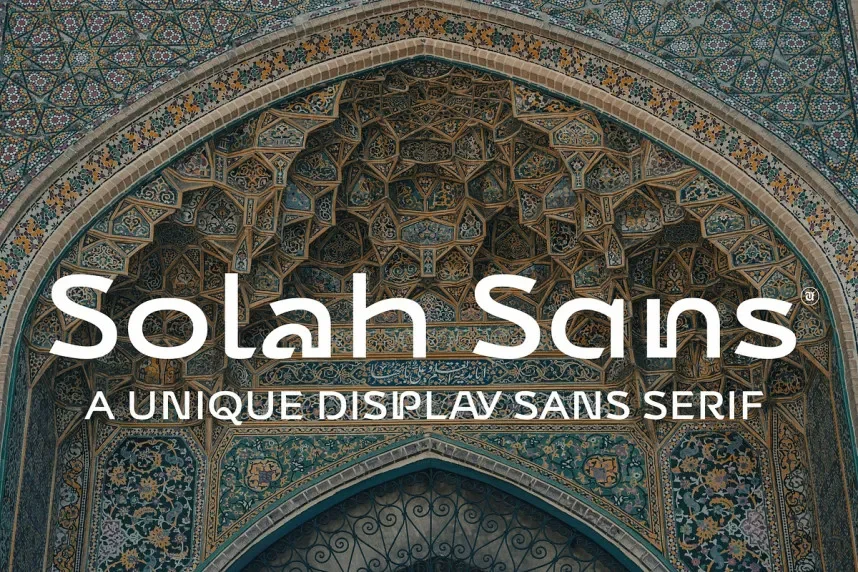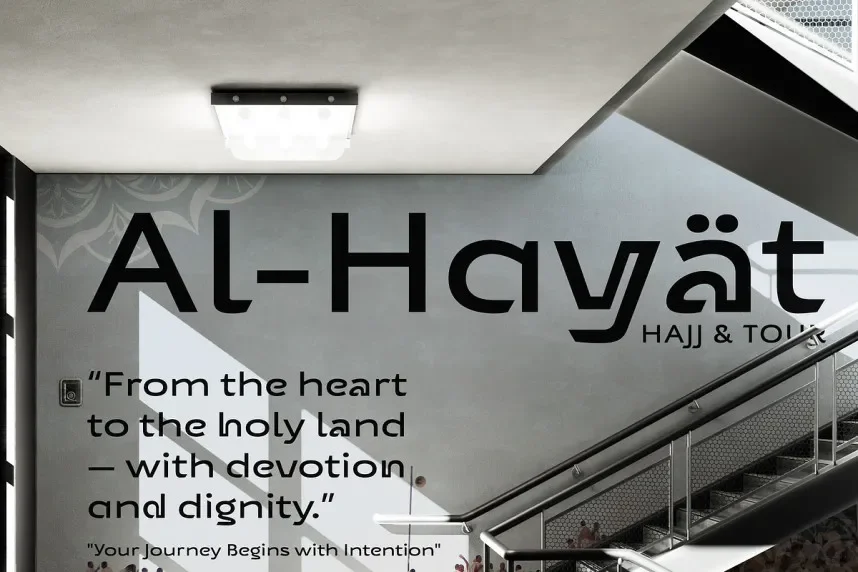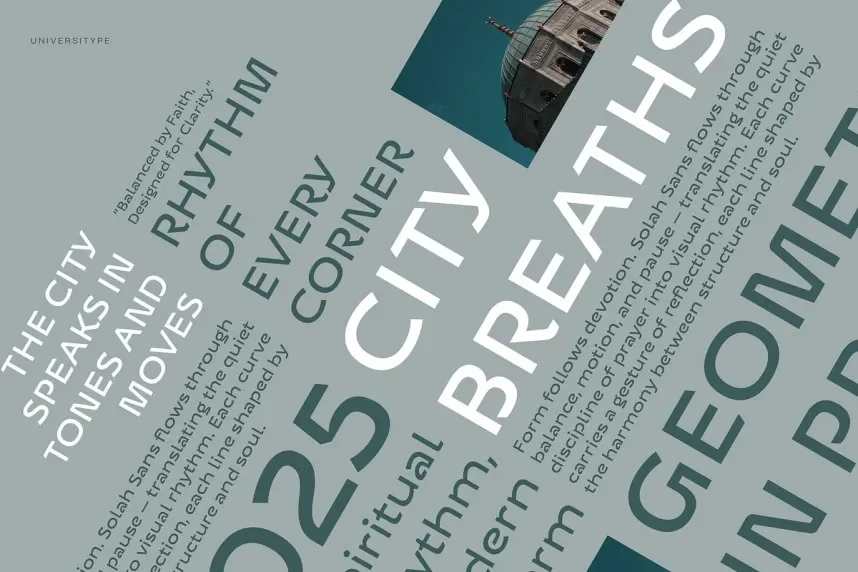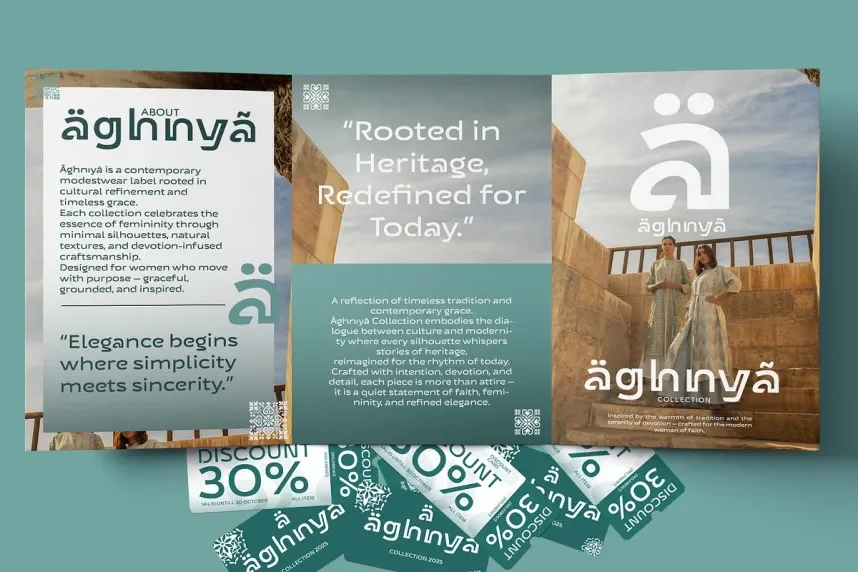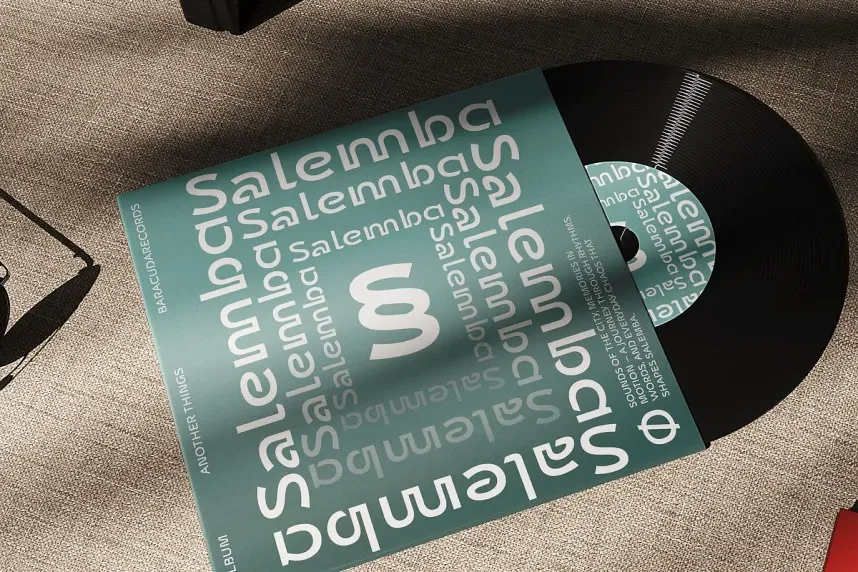
UT Solah Sans Font addresses a common design issue: keeping text clear and consistent across logos, websites, and digital interfaces without visual noise. Designers often choose it when readability, balance, and brand uniformity matter across print and screen projects.
UT Solah Sans is a sans-serif typeface with a modern, geometric structure. The letterforms use even stroke widths, open counters, and balanced spacing. These traits support legibility at small sizes, making the font suitable for UI design, dashboards, and responsive web layouts. The clean shapes also help brands maintain a neutral, professional tone.
The font typically includes multiple weights, from regular to bold, allowing hierarchy in headings and body text. Characters follow standard Latin glyph construction, which helps ensure compatibility across operating systems. Designers often pair UT Solah Sans with a serif font for long-form content or a light script font for accents.
Best use cases include brand identities, startup websites, mobile apps, presentation slides, and product labels. It performs well in both digital and print environments due to consistent spacing and clear letter differentiation.